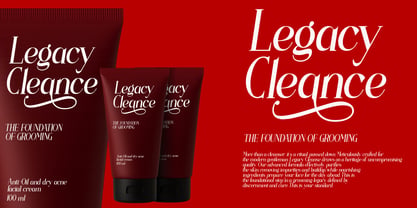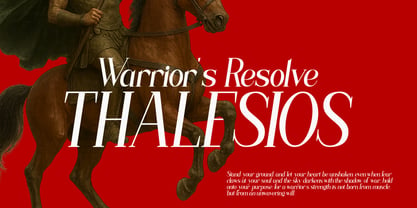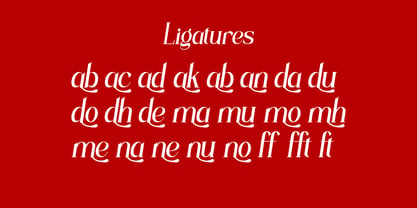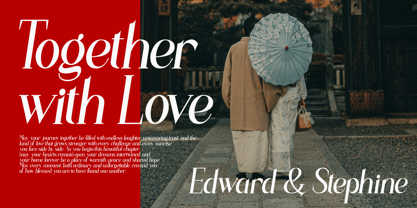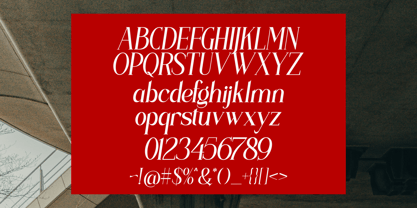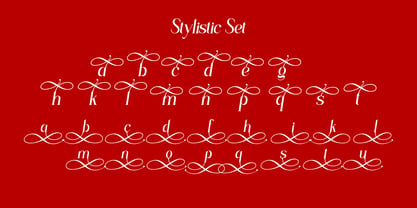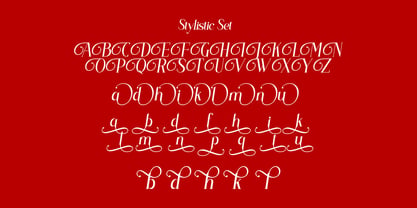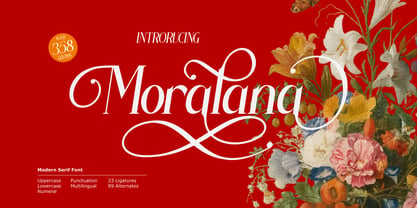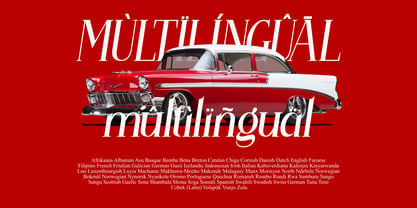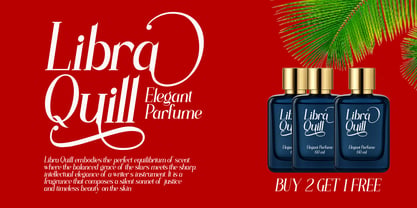
Moralana
by RahagitaType
The Moralana Font Family was designed by Setiadi Rahagita and published by RahagitaType. Moralana contains 1 styles. More about this family
Introducing Moralana, a beautifully refined modern Script typeface that combines classic sophistication with artistic expression. Each curve and detail is carefully designed to create a timeless yet contemporary appearance, ideal for projects that seek elegance and character. With 358 glyphs, including uppercase, lowercase, numerals, punctuation, multilingual support, 23 ligatures, and 89 stylistic alternates, Moralana offers versatile design possibilities for distinctive typography. The graceful strokes and flowing letterforms make every composition feel refined and expressive. Perfect for: Branding and logo design Editorial and magazine titles Wedding invitations and stationery Luxury packaging Fashion and beauty projects